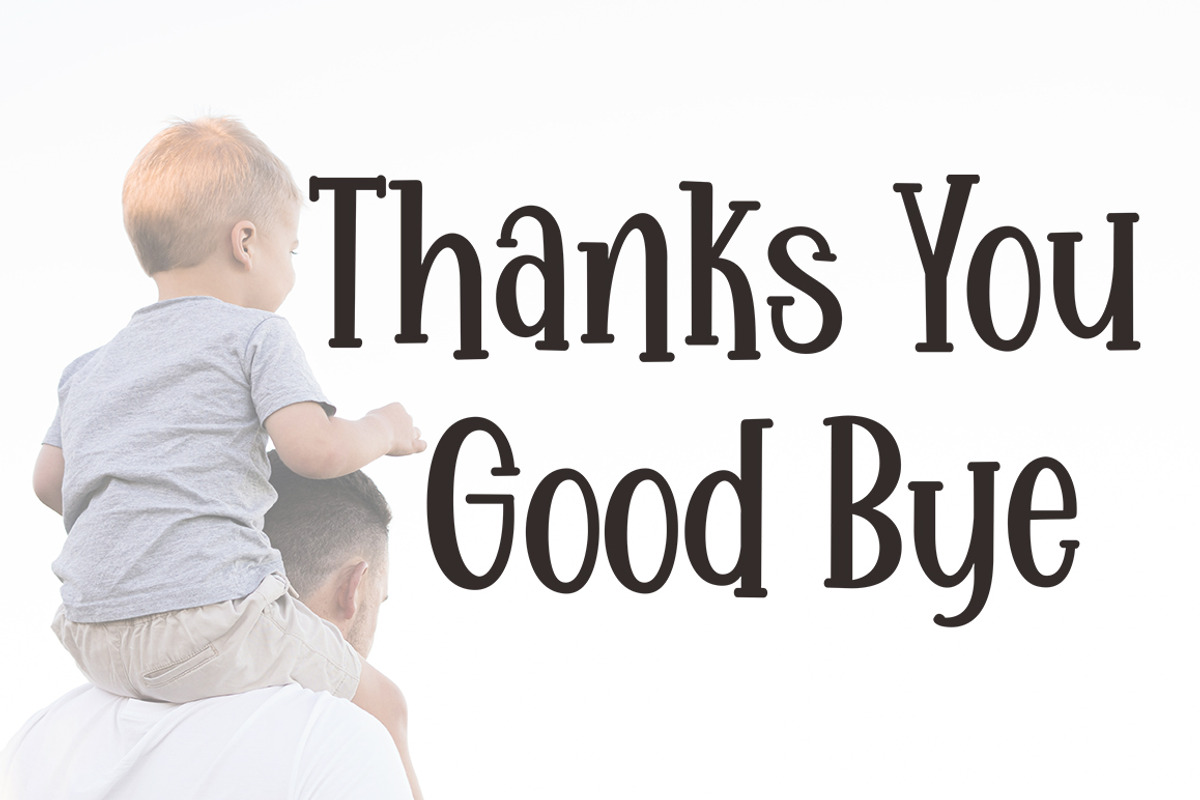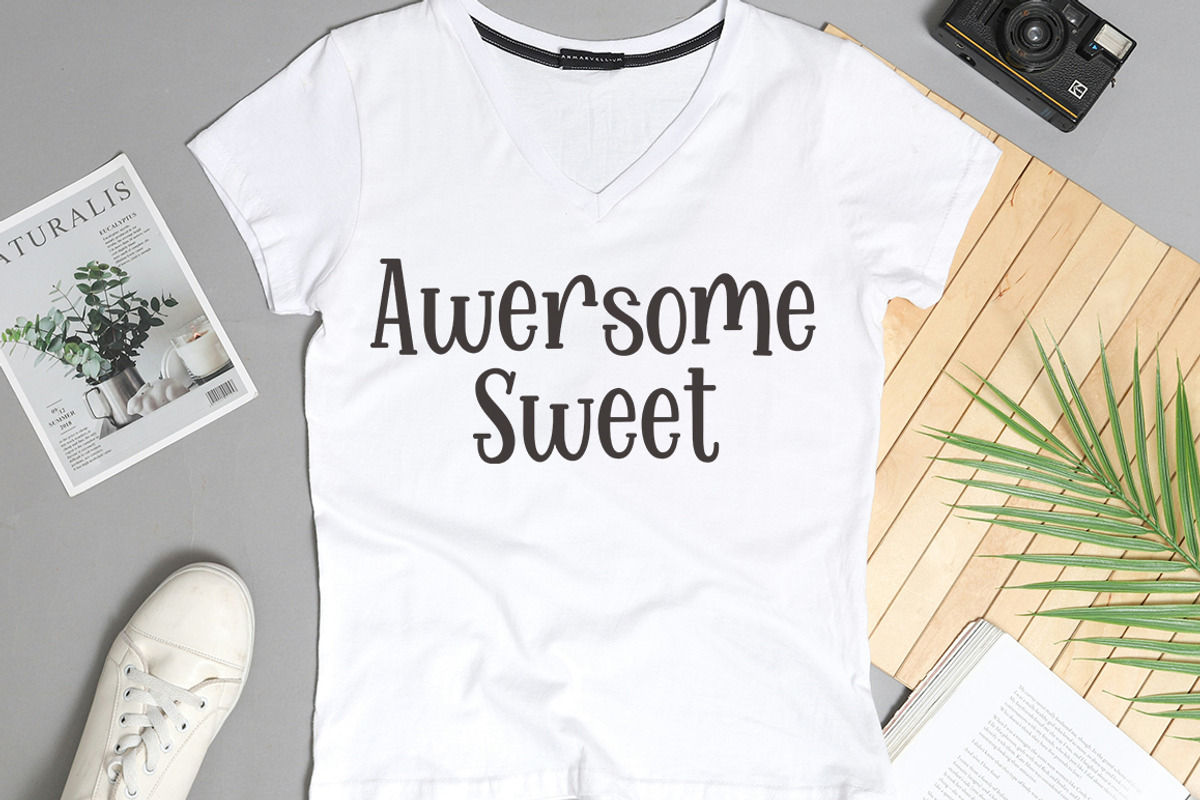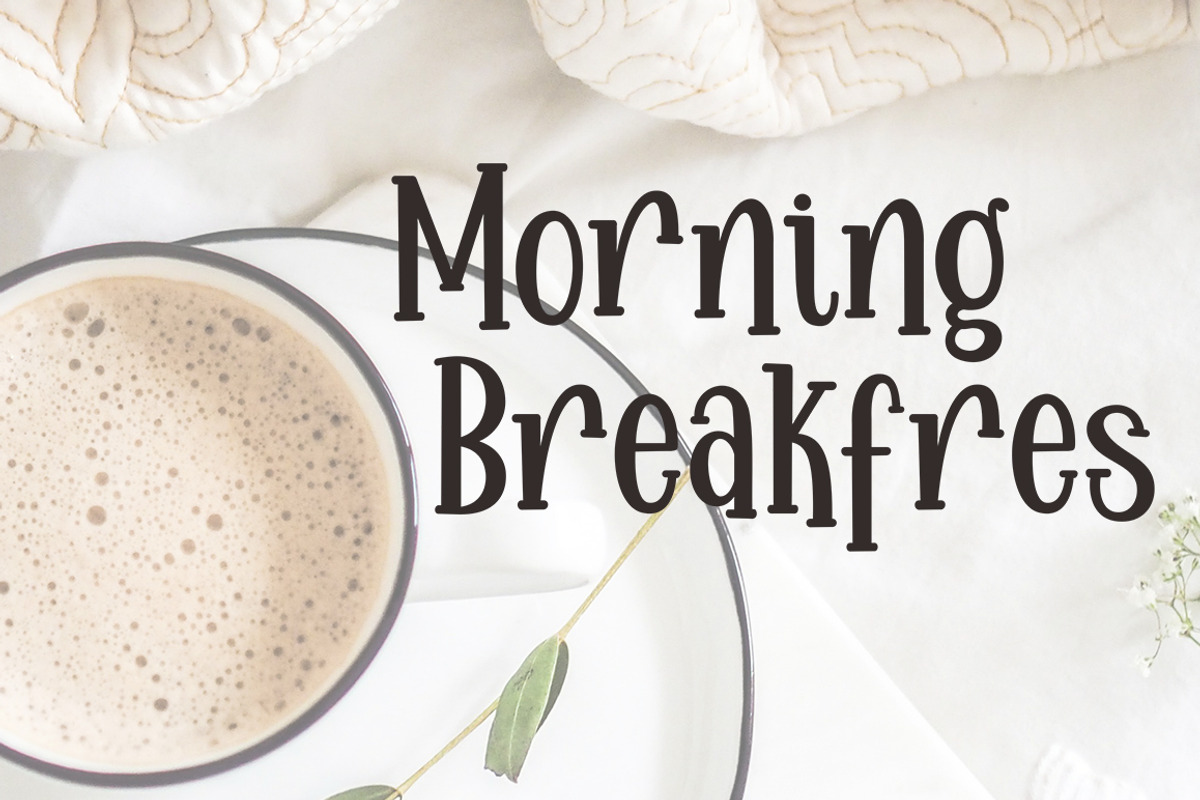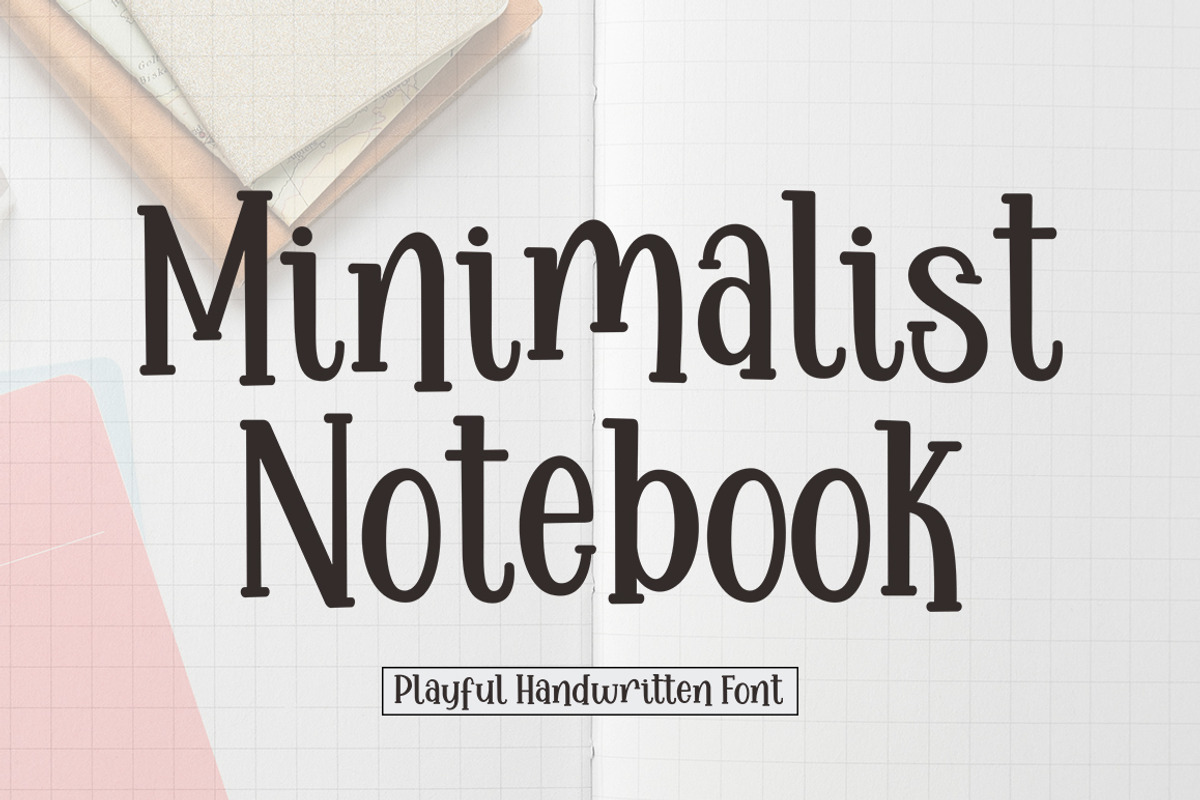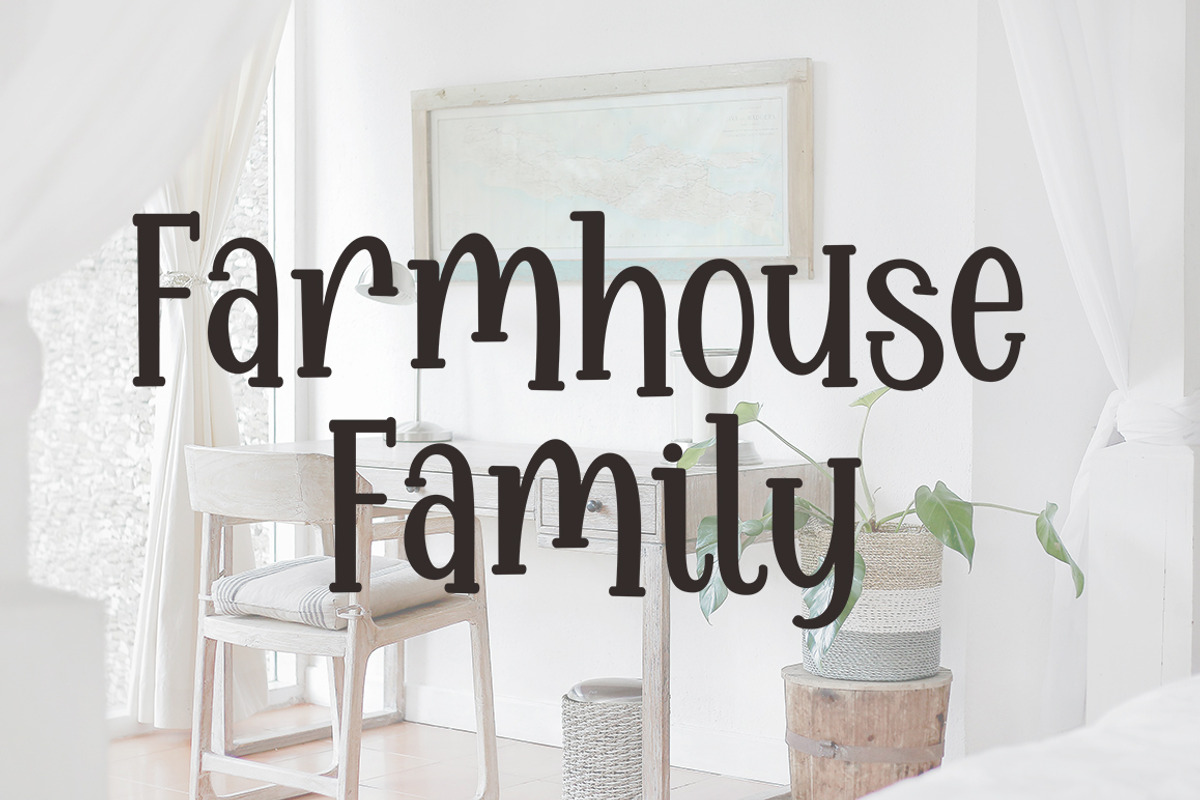
Minimalist Notebook
Minimalist Notebook is a simple sans-serif font designed for a clean retro look. With its vintage balanced proportions, this font is perfect for creating a minimalist aesthetic in Tattoos, logos, web design, and branding.